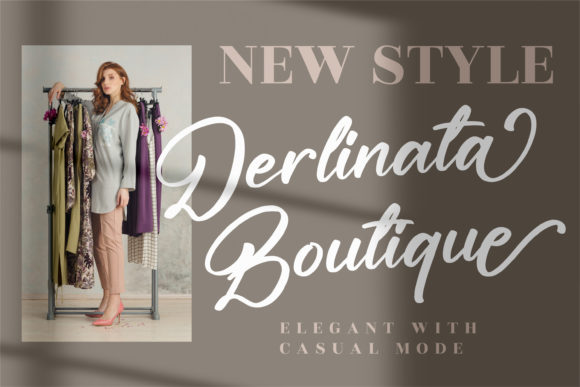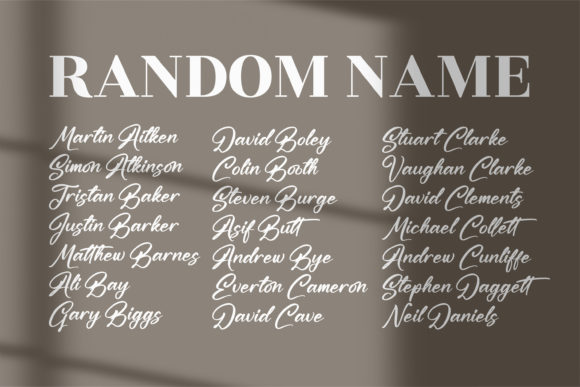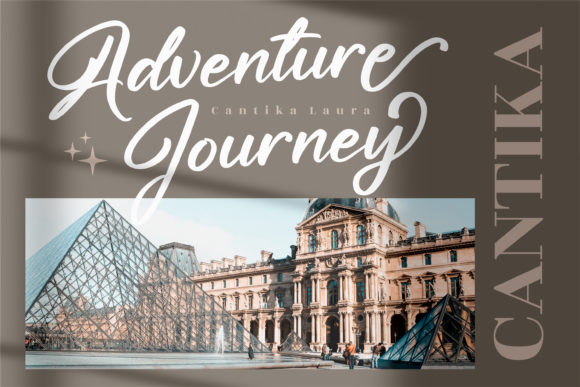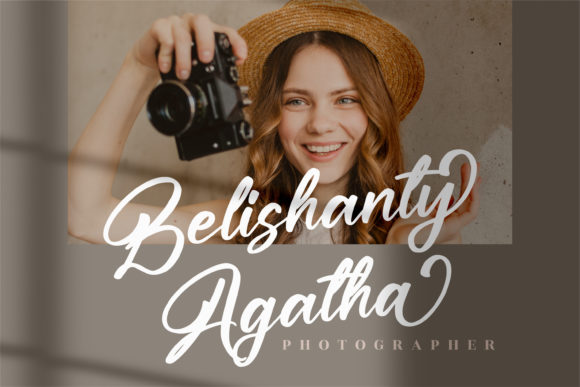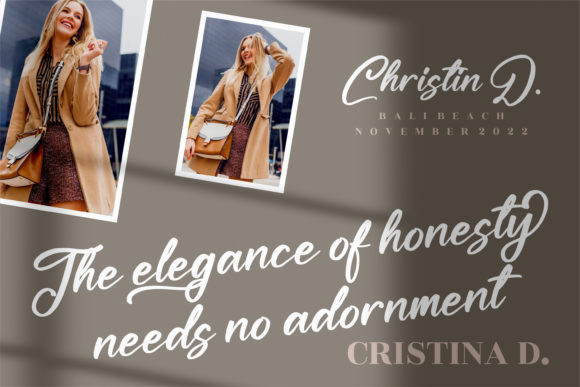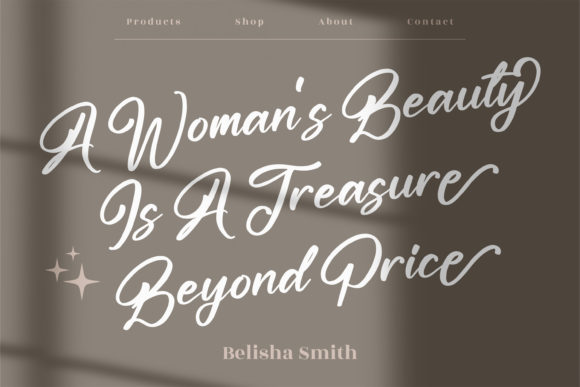
Introduction to Halingtone William Font
Halingtone William is a lovely and delicate script font that exudes elegance and class.
This font was particularly crafted for those who need a beautiful and refreshing look to their designs Halingtone William is PUA encoded which means you can access all of the glyphs and swashes with ease.
Key Features of Halingtone William Font
Why Choose Halingtone William Font?
Halingtone William Font offers exceptional quality and versatility, making it a valuable addition to your design toolkit. Whether you’re creating for personal projects or commercial use, Halingtone William Font delivers professional results.